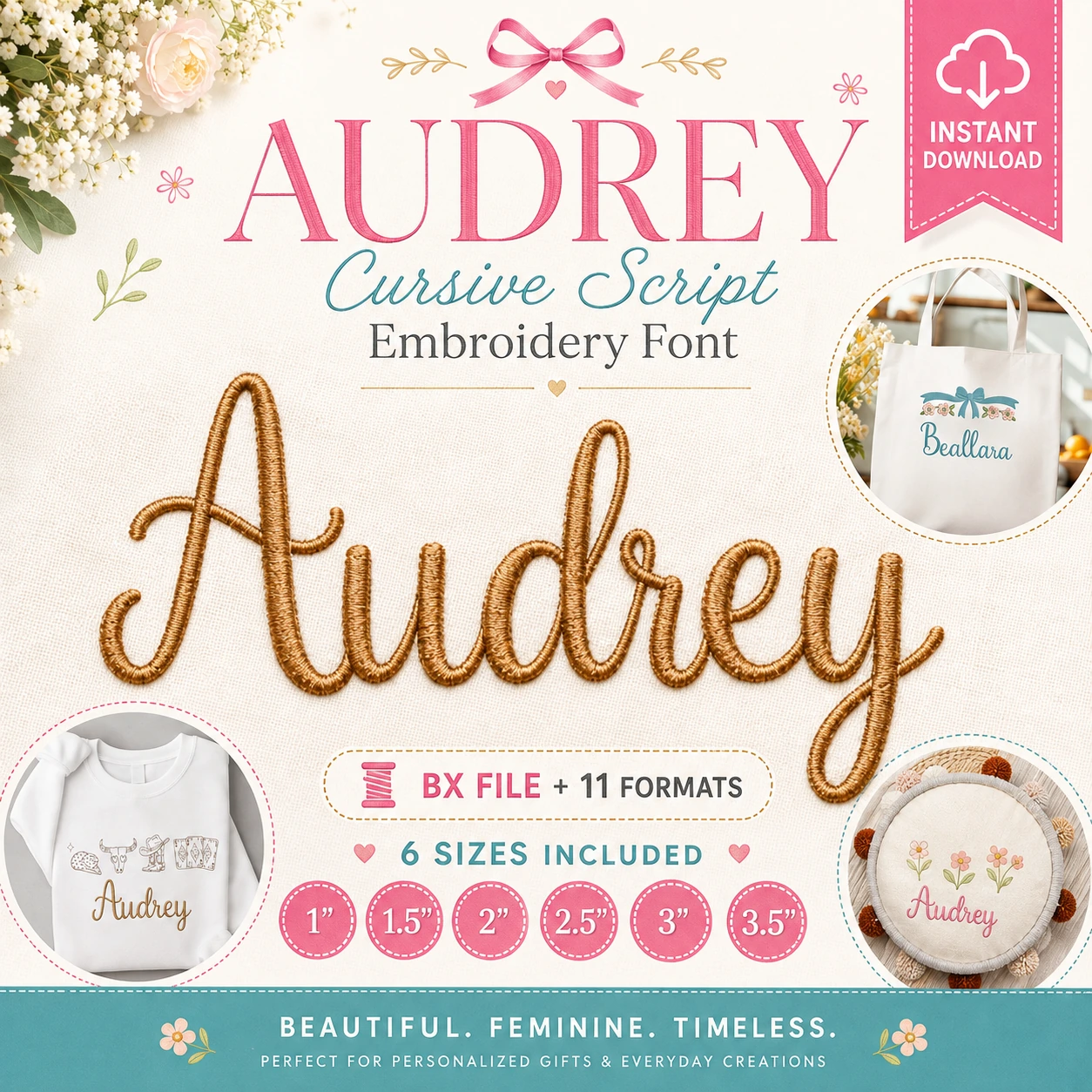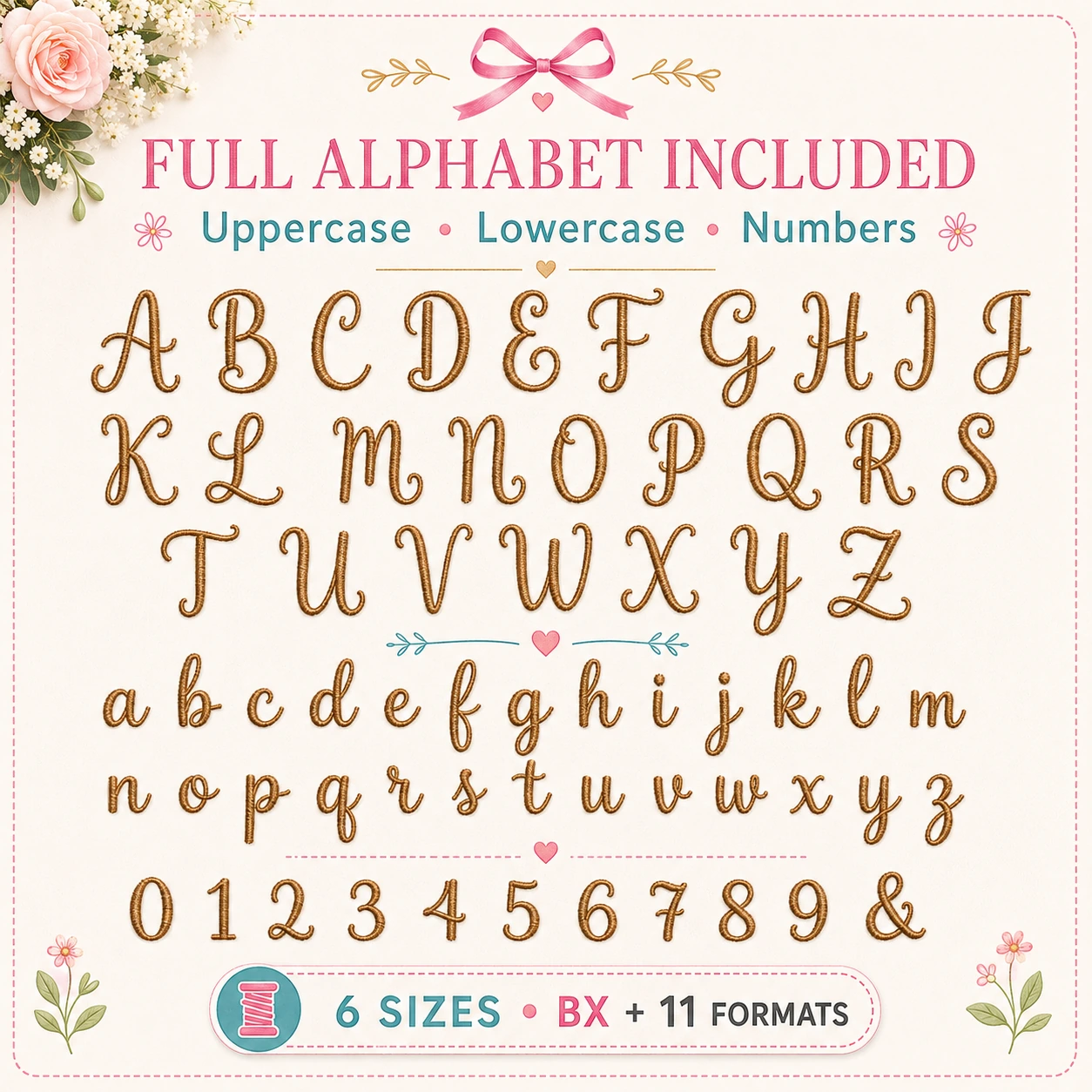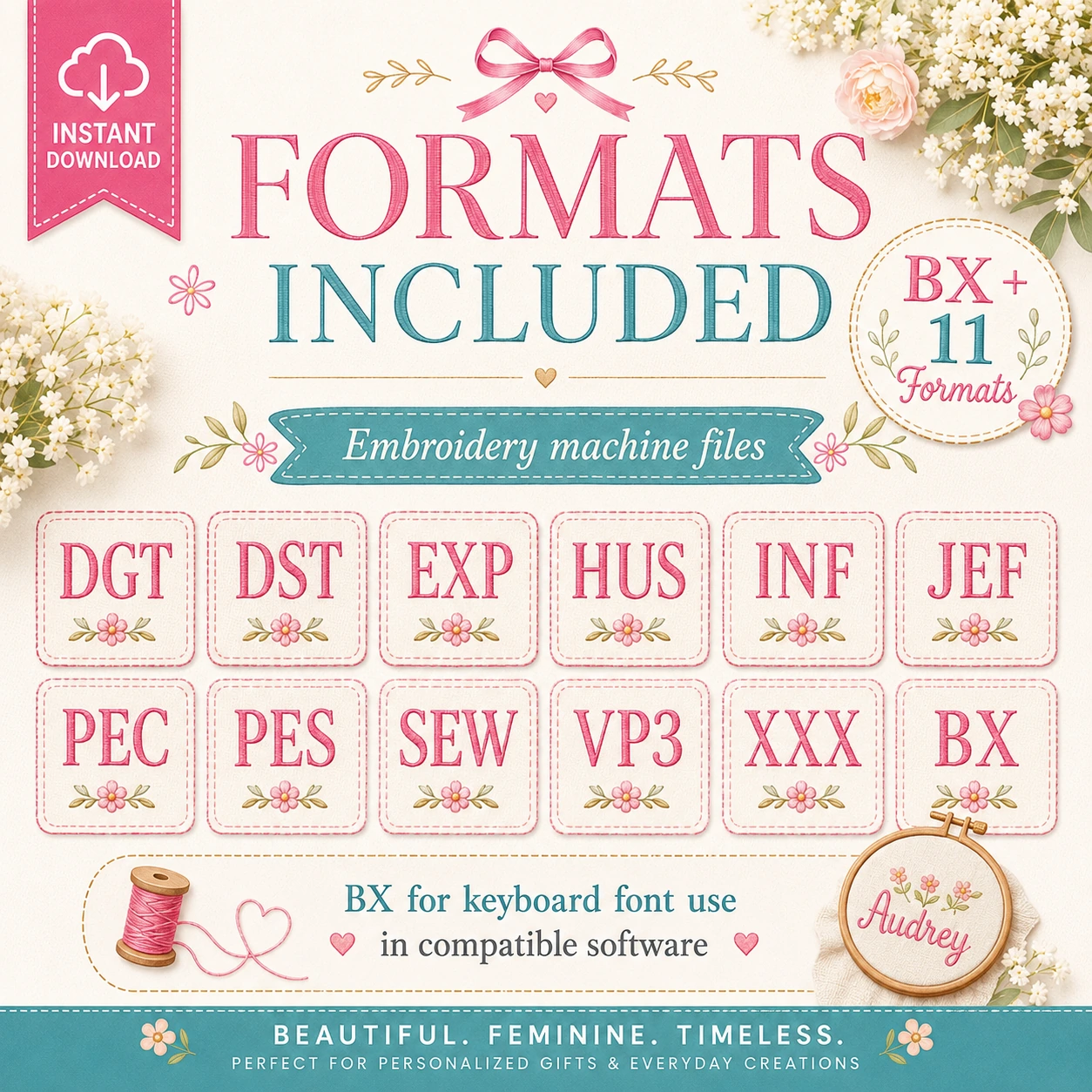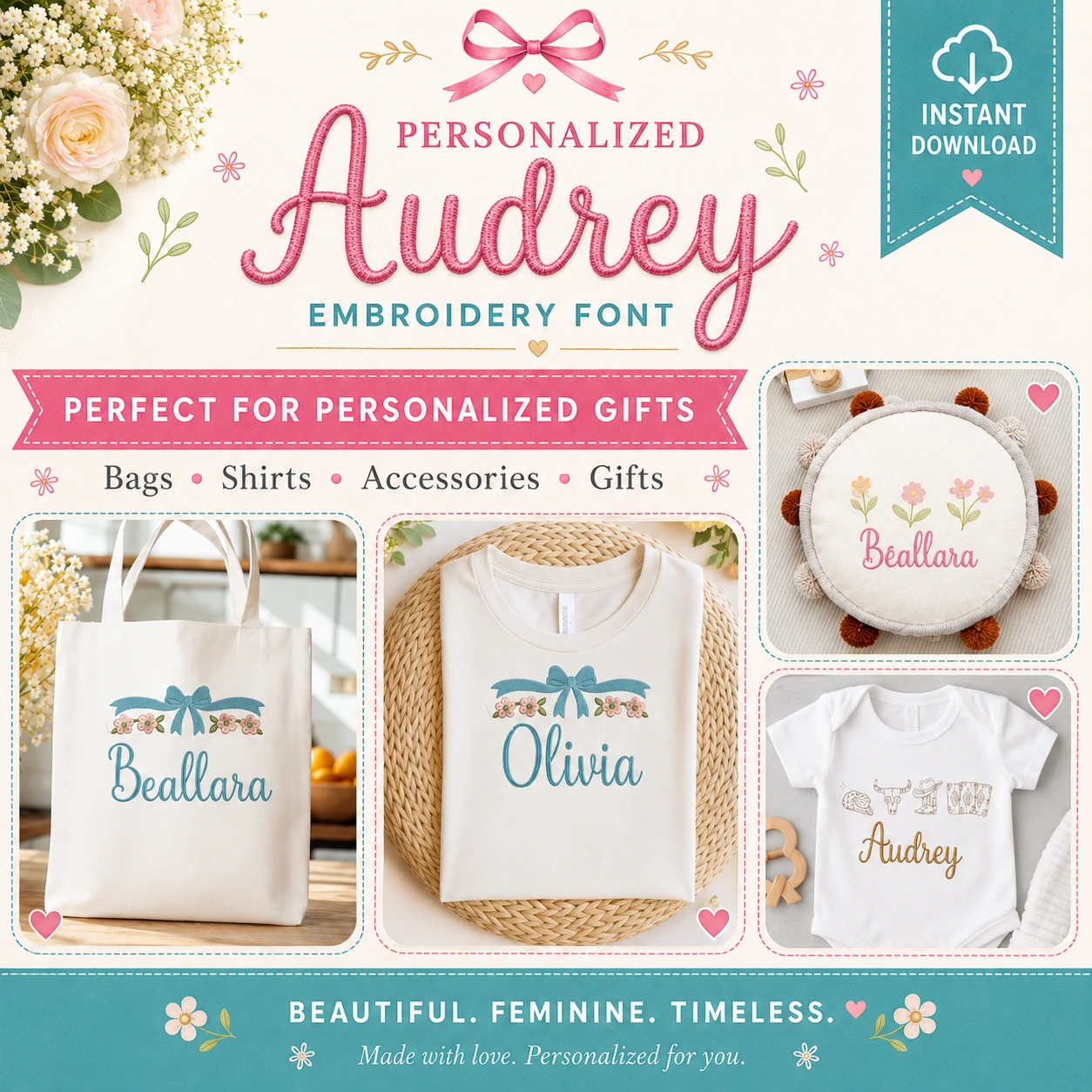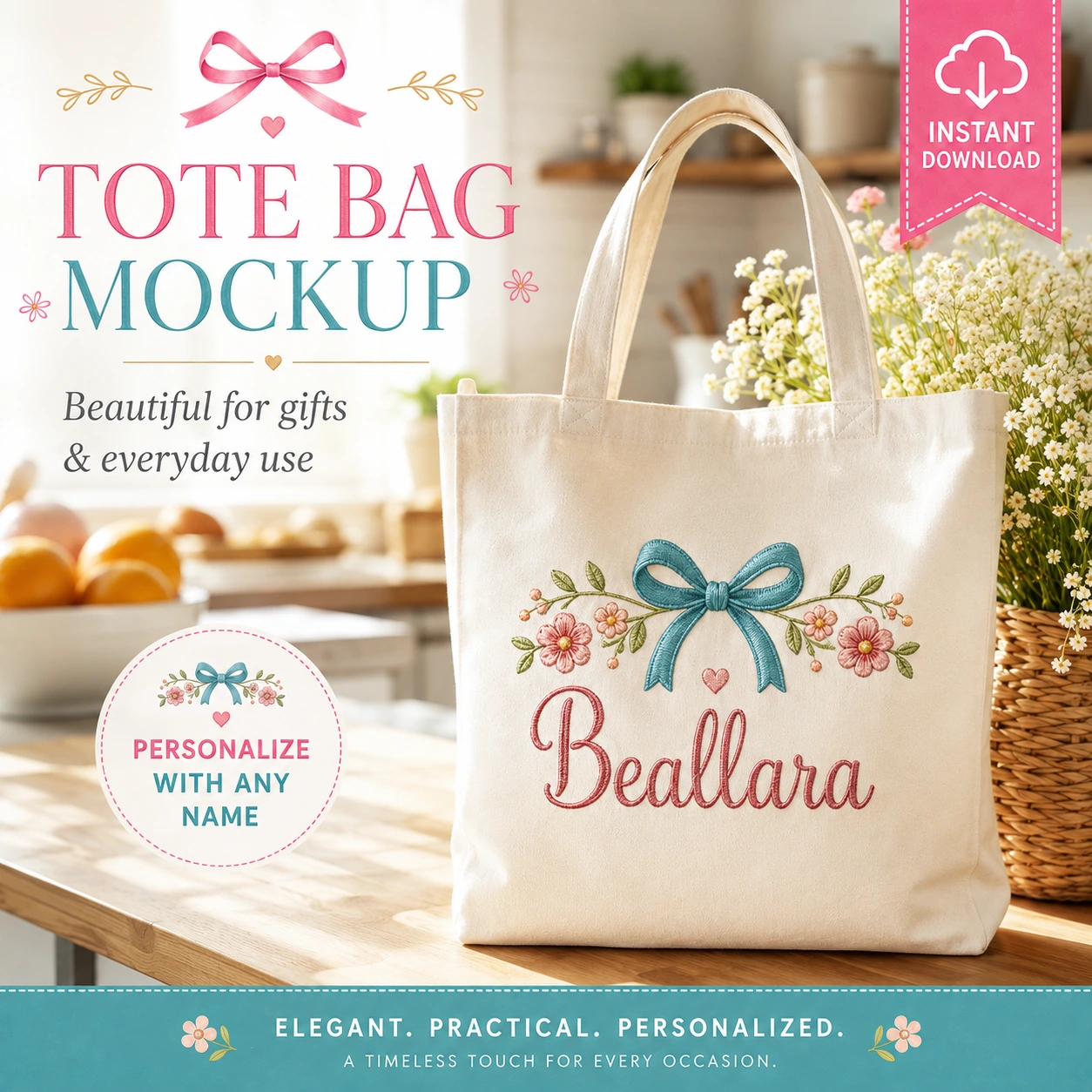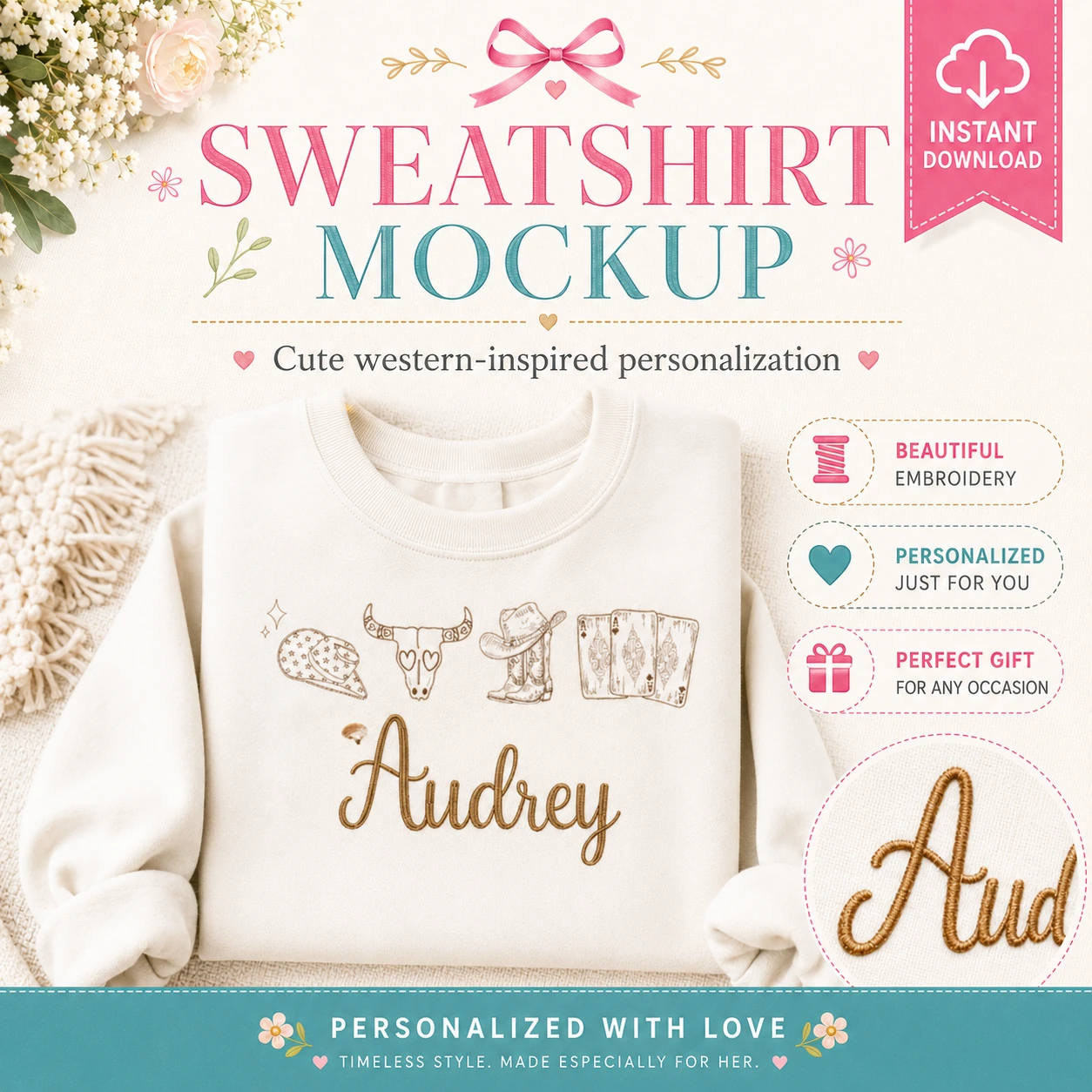
Add elegant, feminine personalization to your embroidery projects with the Audrey Cursive Script Embroidery Font.
Audrey is a beautiful machine embroidery alphabet designed for names, monograms, personalized gifts, tote bags, shirts, sweatshirts, baby items, girls’ backpacks, accessories and boutique embroidery projects.
• 26 Uppercase Letters A–Z
• 26 Lowercase Letters a–z
• Numbers 0–9
• Additional symbol: &
Personalized names, monograms, tote bags, sweatshirts, baby gifts, girls’ backpacks, boutique embroidery, personalized accessories, gifts and everyday embroidery projects.
The Audrey font combines an elegant handwritten cursive appearance with a clean embroidered finish, making it ideal for feminine, modern and timeless personalization.